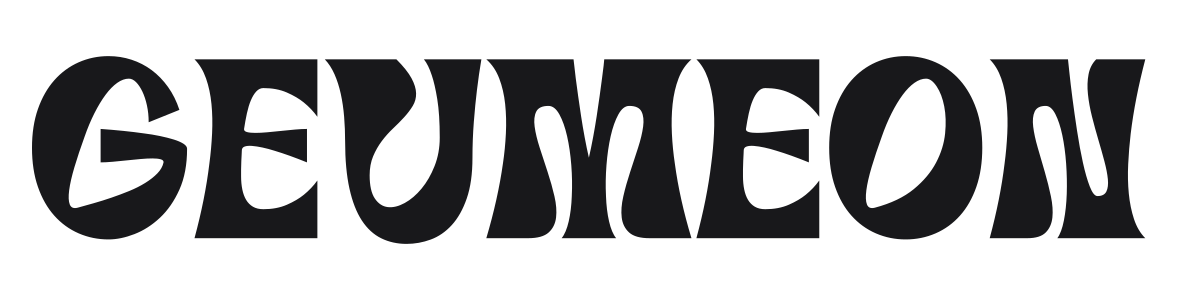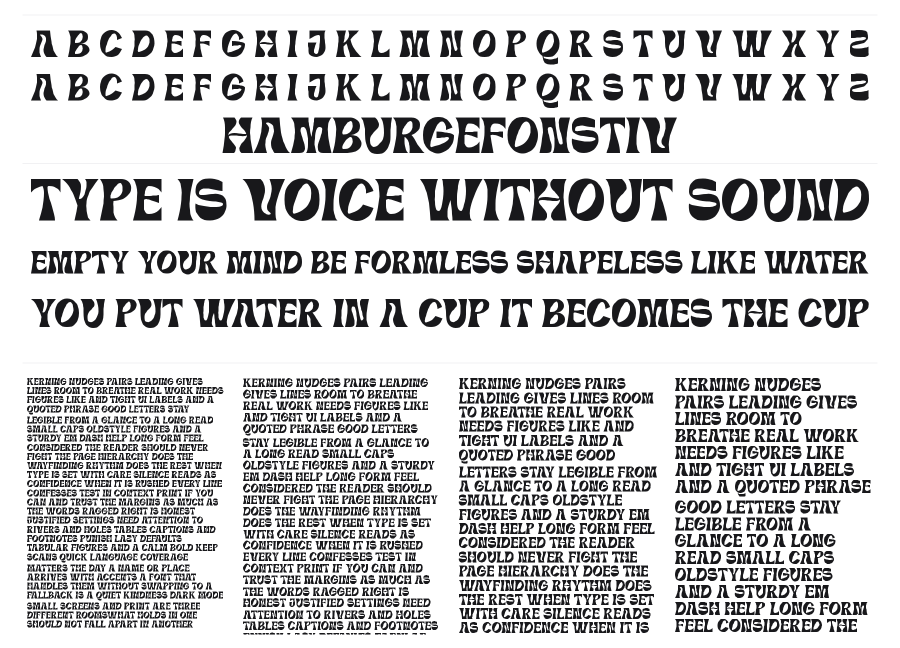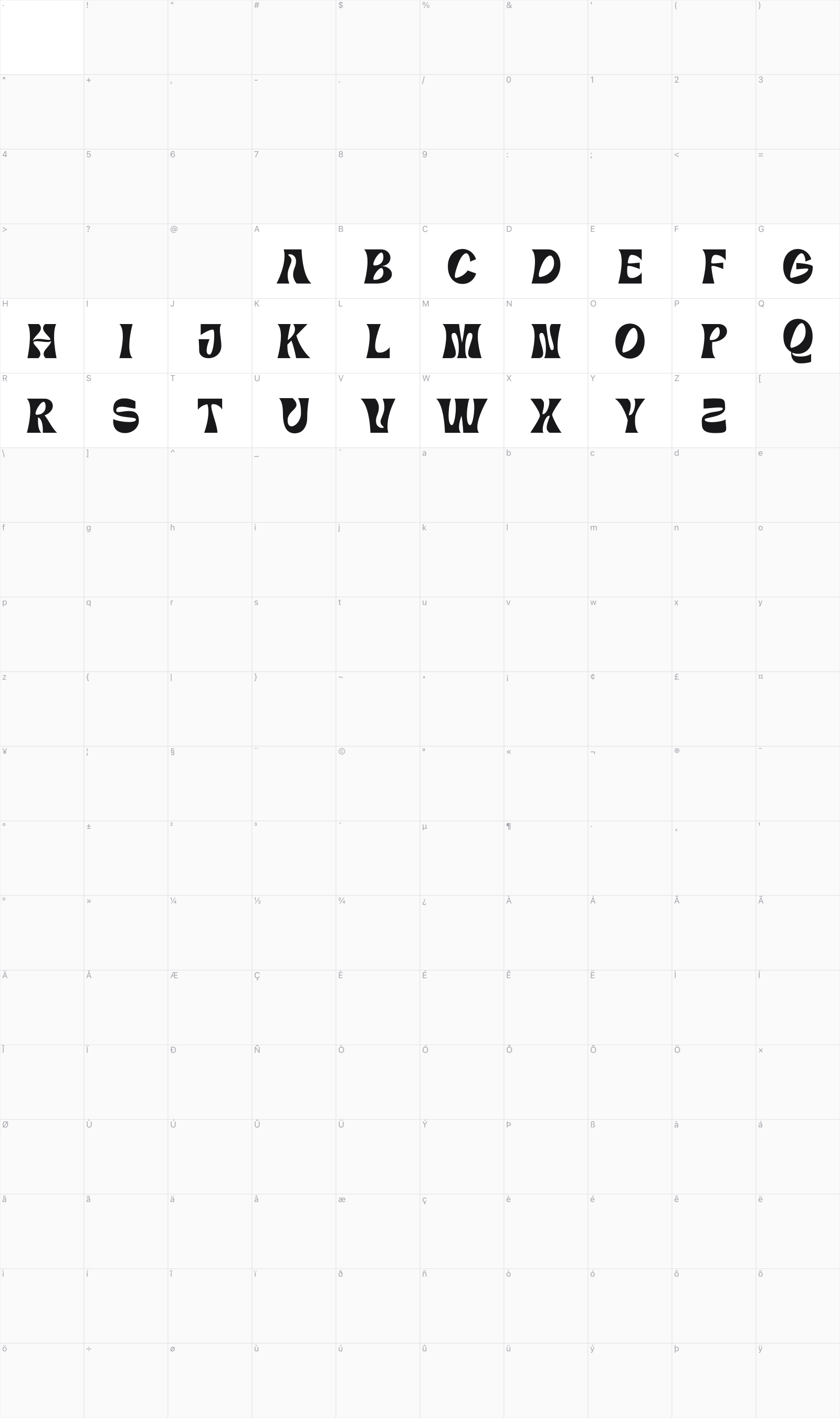
Geumeon
Geumeon is a groovy display typeface soaked in late-1960s psychedelia, with swollen heavy strokes, dramatic triangular cutouts at stroke junctions, and tight bulging counters. Every character feels inflated almost to bursting, making the weight itself part of the personality. It thrives on posters, album covers, and any project that needs unapologetic retro swagger.